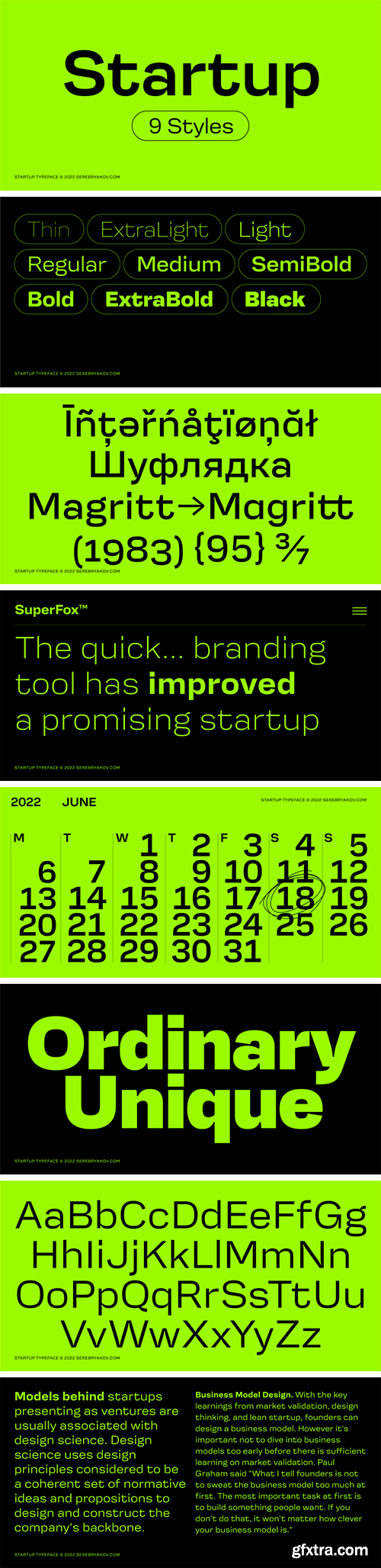
Startup is a nine style type famaly. It combines the aesthetics of gothic sans and Neo-grotesques. Created specifically for the creation of startup identity. When you need something that doesn't scream, but has personality. This type family can be used in the design of the logo, as well as apply it to headlines and secondary texts.